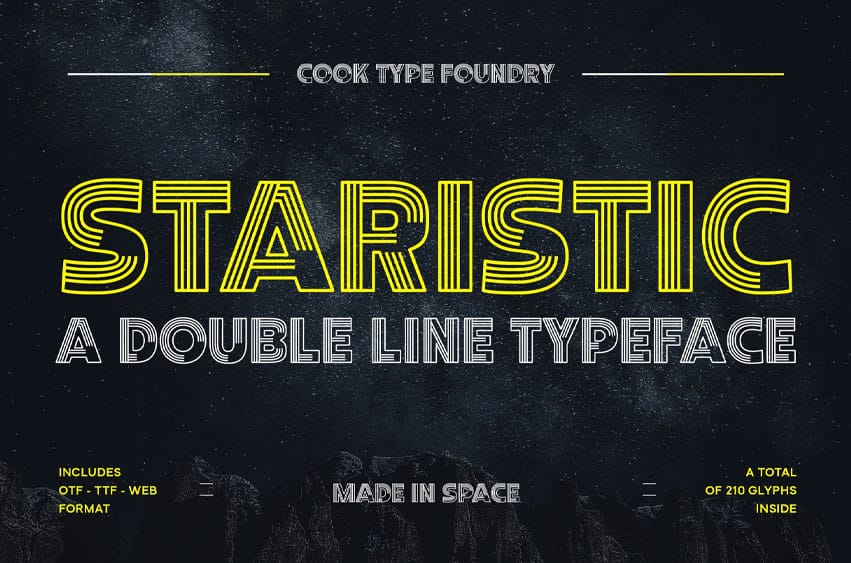
Staristic Font is an inline display typeface inspired by space and futuristic aesthetics. Its clean geometric shapes and double-line details create a high-tech, cosmic feel, making it perfect for sci-fi designs, space posters, game titles, and futuristic branding.
It is perfect for headlines, logotypes, magazines, packaging, quotes, movies, games, cover albums, book covers, and flyers, it’s a perfect solution for creating eye-catching designs that stand out in any context.